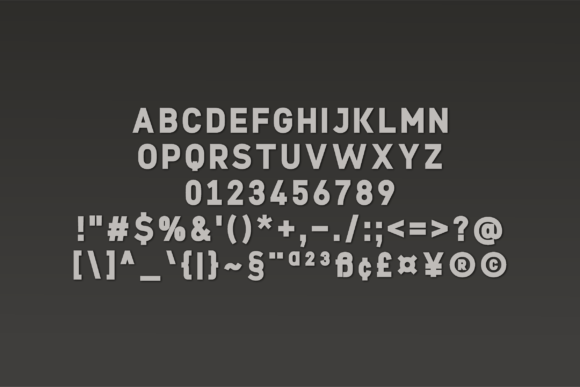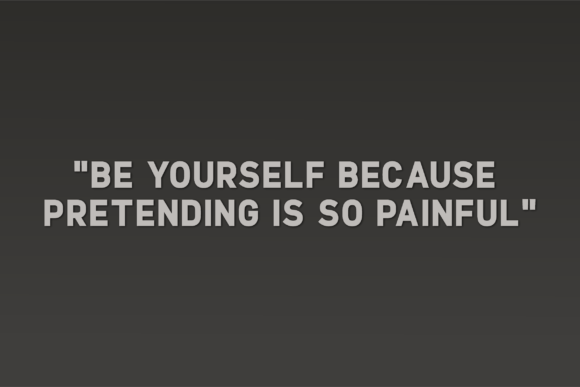
The Perfect Font for Your Creative Vision
Have you ever stared at a blank canvas, waiting for the perfect font to spark your creativity? That moment of inspiration is what drives designers to push the boundaries of typography. It’s where ideas come alive, and the right font can make all the difference. For designers seeking that elusive ‘wow factor’, I’d like to introduce you to a game-changer: the Boldelta Font.
This all-caps sans serif font is the ultimate solution for designers looking to add a touch of sophistication to their projects. With its smooth lines and just the right amount of contrast, the Boldelta Font works beautifully for logos, branding, and web headings. Whether you’re working on a high-profile campaign or a personal project, this font is sure to elevate your design to the next level.
Boldelta Font Key Features
- Unique Characteristics: Boldelta Font features a unique blend of modern and classic elements, with bold lines, geometric shapes, and a touch of elegance, making it perfect for headlines and titles.
Boldelta Font Review
I recently had the chance to work with the Boldelta font, and I must say it’s a mixed bag. Let’s dive into what works well and what doesn’t.
- The font is indeed bold, which makes it perfect for headlines and titles. It’s great for grabbing attention and making a statement.
- The font is highly legible, even at small font sizes. I was impressed by how well it held up on different devices and screen resolutions.
- The font has a modern feel to it, which makes it perfect for contemporary designs and branding.
- The font is a bit too bold for some applications. I found it difficult to use it for body text, as it was overwhelming and difficult to read.
- The font lacks some nuance and subtlety. It’s either bold or not, with no middle ground.
- The font could benefit from some additional weights and styles to make it more versatile.
Overall, I think the Boldelta font is a solid choice for certain applications, but it may not be the best fit for every project. With some additional development, I think it has the potential to be a great font. As it stands, I’d give it 3.5 out of 5 stars.
Getting the Most Out of Boldelta Font
For optimal results, use Boldelta Font for headings and titles, and pair it with a clean and simple font for body text.
Boldelta Font is ideal for:
- Headings and titles in presentations and documents.
- Advertising and marketing materials.